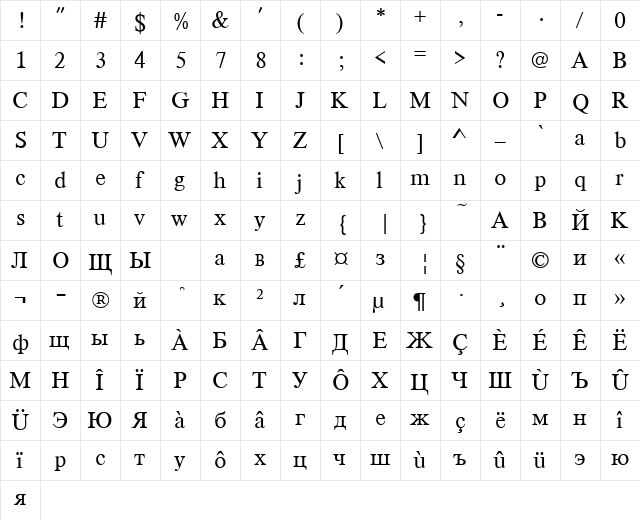
CyrillicFrenchTimesSSK Regular Font Preview
CyrillicFrenchTimesSSK Regular
Design Context for CyrillicFrenchTimesSSK Typeface
CyrillicFrenchTimesSSK takes a measured approach to typography — its balanced proportions and neutral character make it a reliable workhorse for both digital and print work.